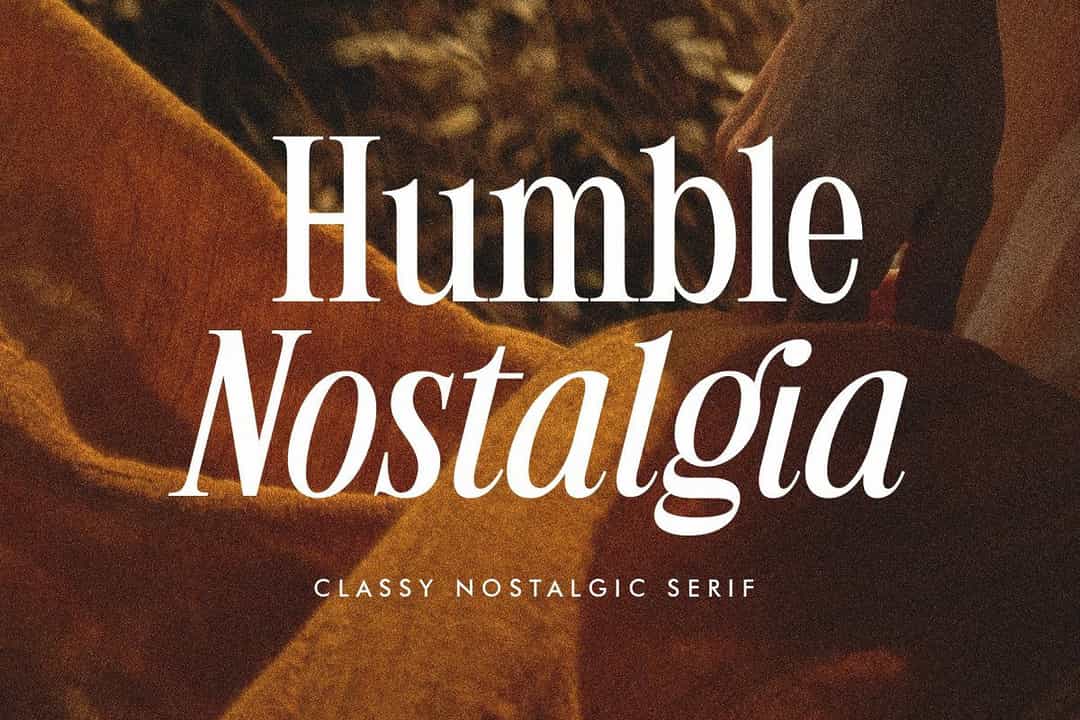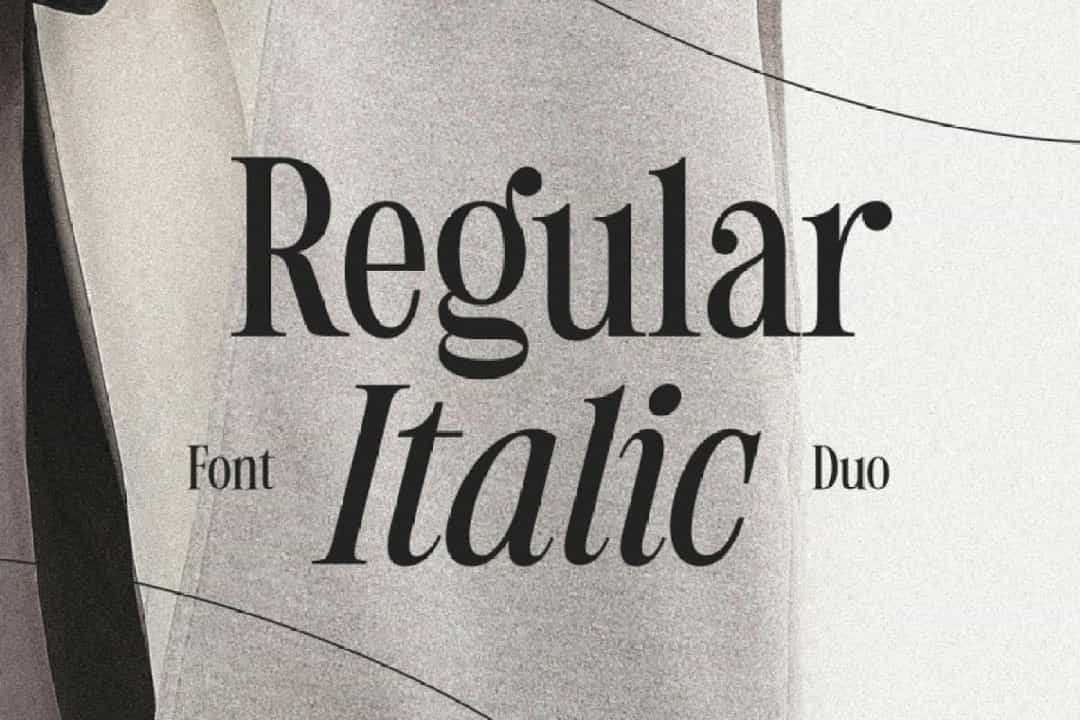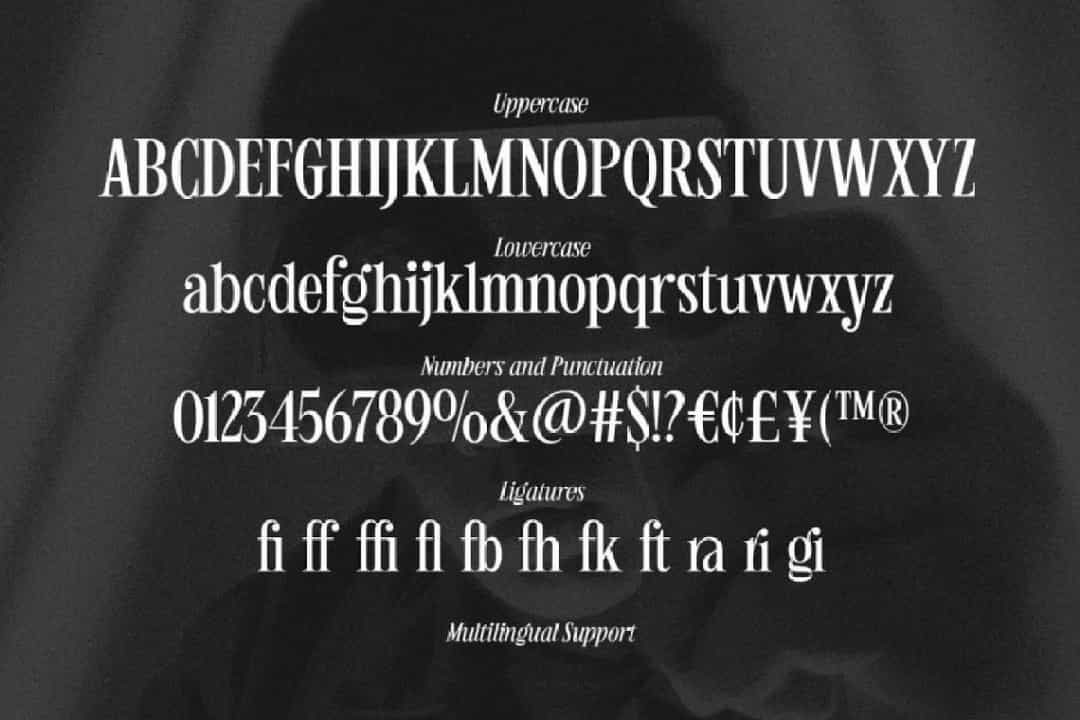
Experience classic styling with The Humble Nostalgia font! A sophisticated and elegant serif font from the 80s that features precise spacing and kerning to create an elegant appearance. A beautiful combination of italic and regular styles looks fantastic across small to large dimensions for optimal design projects.